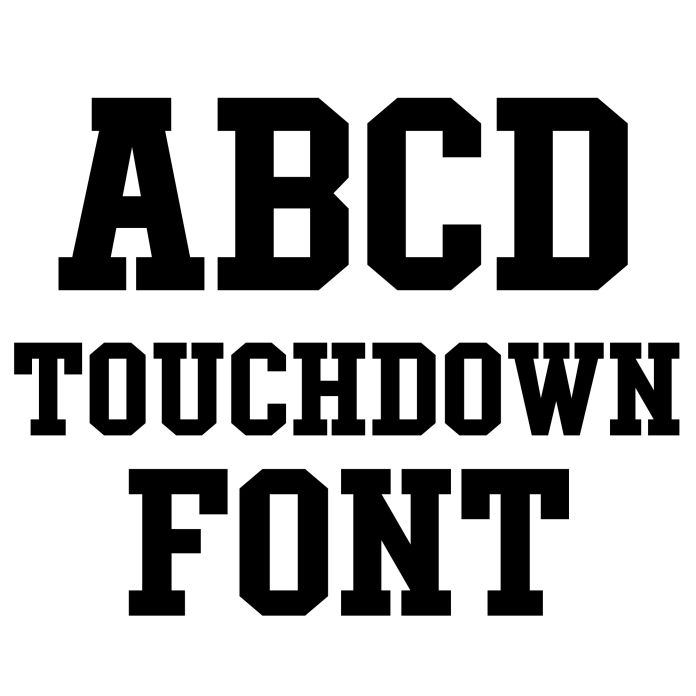
Bring bold, game-day energy to your projects with the Touchdown Font! This classic varsity-style typeface is perfect for sports-themed designs, team spirit wear, banners, posters, party décor, and more. With strong block letters and a collegiate flair, it’s ideal for football, baseball, basketball, and any event that calls for a winning look. Designed for digital cutting machines, this font adds a professional, athletic touch to your crafts. For more creative ideas and inspiration using Lori Whitlock’s files, be sure to visit her blog, Facebook page, and Instagram. Don’t forget to explore her shop for even more design possibilities!